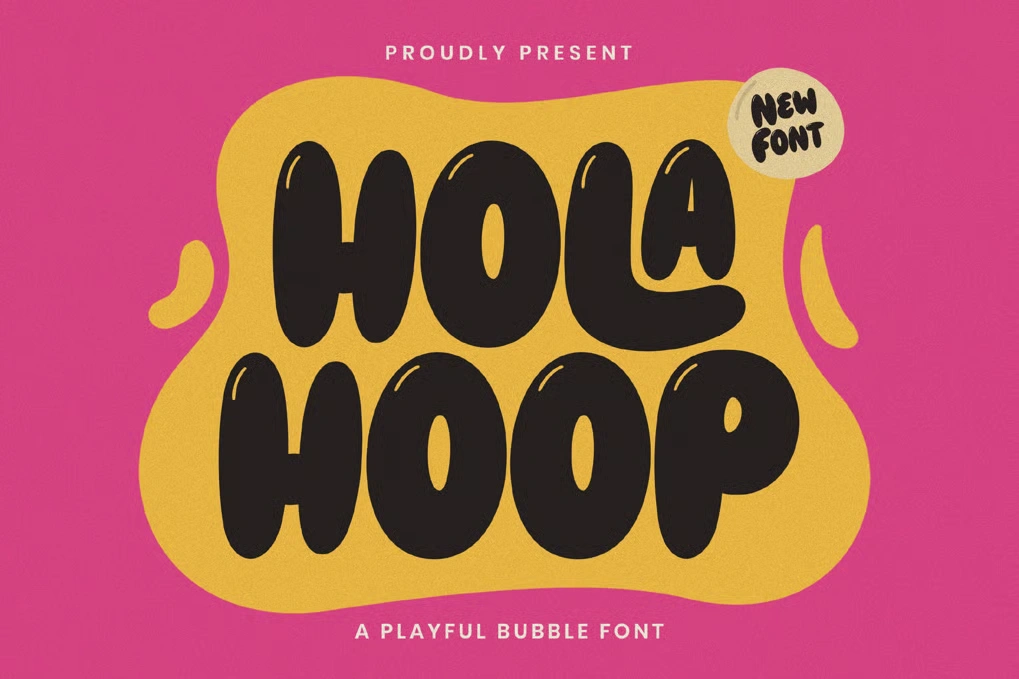
Playful Holahoop Font
Playful Holahoop – bubble font HOLAHOOP a playful bubble font that’s full of life and personality! With its bold, rounded shapes and cheerful bounce, HOLAHOOP is designed to make any design feel fun, loud, and full of good vibes. Inspired by retro cartoons and pop-style graphics, this font brings a nostalgic punch with a modern twist. Whether you’re creating vibrant poster art, energetic social media graphics, funky packaging, or playful branding, HOLAHOOP brings a groovy, hand-lettered charm that stands out. Perfect for creatives who want their designs to shout “fun” in every letter. Let HOLAHOOP roll into your work and turn up the happy! Features:
Alternates & Ligatures
Who Should Use HOLAHOOP? HOLAHOOP is made for bold creatives, playful designers, and anyone who wants to inject fun into their visuals. Whether you’re:
A brand builder looking for a bubbly identity
A music lover designing retro album art
A content creator making scroll-stopping social media posts
Or a small business wanting to stand out with quirky packaging HOLAHOOP is your go-to font for turning up the energy and leaving a lasting impression.
A Must-Have Font for Brand and Logo Creators and Designers HOLAHOOP isn’t just a font—it’s a burst of personality. With its playful bubble style and bold curves, this typeface is perfect for creators who want their logos and branding to pop. Whether you’re crafting a fun product label, an eye-catching logo, or a bold visual identity, HOLAHOOP delivers unforgettable charm with every letter.
Why Choose HOLAHOOP for Brand and Logo Projects? HOLAHOOP brings boldness, bounce, and energy to every design. Its bubble-style letterforms are full of fun and character—instantly grabbing attention and leaving a lasting impression. Whether you’re building a quirky brand, designing a playful logo, or creating visuals that need to stand out, HOLAHOOP gives you the tools to express creativity with confidence. It’s not just a font—it’s a statement.